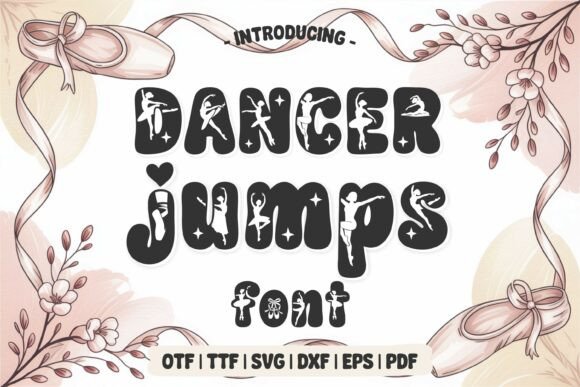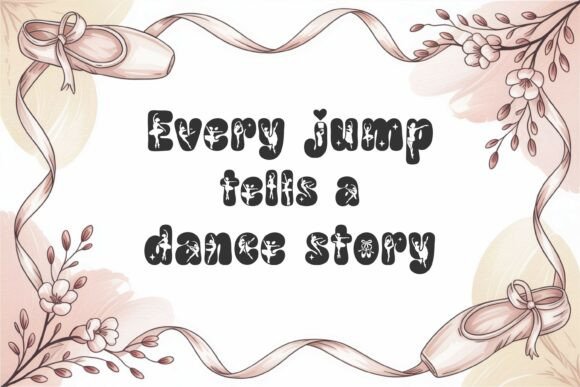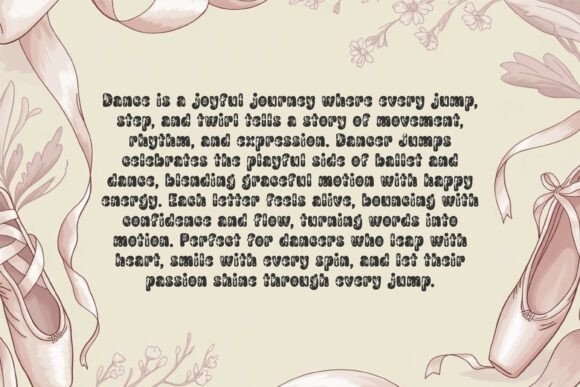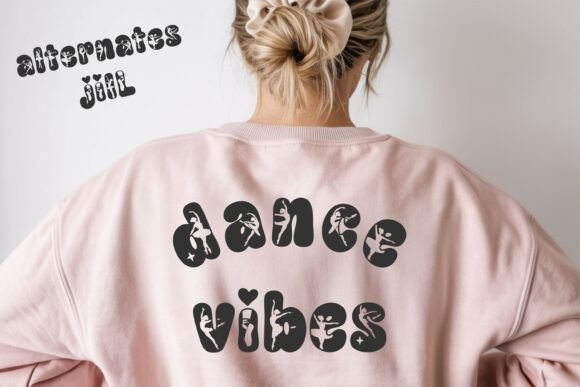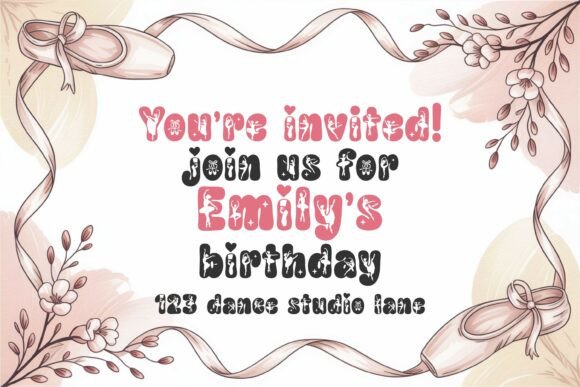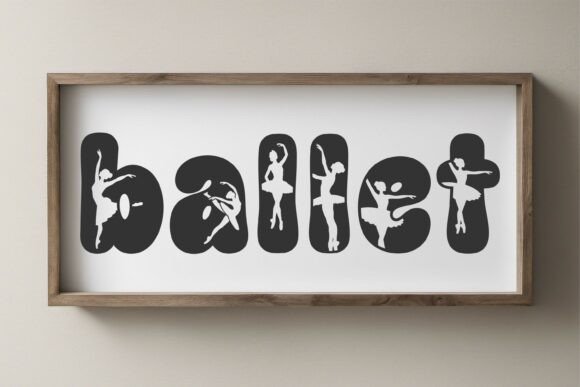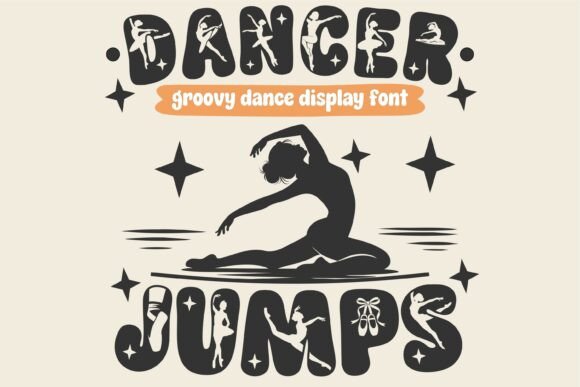
Dancer Jumps Font: A Playful and Energetic Typeface Inspired by Ballet Movement
Are you looking for a font that captures the joy, elegance, and playfulness of dance? Look no further than Dancer Jumps, a unique and energetic typeface that combines groovy, wavy letterforms with elegant dancer silhouettes. This font is perfect for designers, crafters, and dancers who want to add a touch of fun and sophistication to their projects.
A Perfect Balance of Fun and Grace
Dancer Jumps font is a masterful blend of playful and elegant design elements. The wavy letterforms evoke the fluid movements of ballet, while the dancer silhouettes add a touch of whimsy and fun. This font is ideal for creating eye-catching designs that celebrate the joy and athleticism of dance. Whether you’re designing a logo for a dance studio, creating a poster for a performance, or making a sign for a kids’ room, Dancer Jumps font is the perfect choice.
Dancer Jumps font is incredibly versatile and can be used for a wide range of creative projects. Some ideas include:
• Ballet signs and posters
• Dance quotes and inspirational graphics
• Kids’ room decor and wall art
• T-shirts, stickers, and other merchandise
• Name signs and personalized gifts
• Cricut or Silhouette projects
• Dance studio logos and branding
• Performance posters and flyers
A Complete Design Solution
One of the unique features of Dancer Jumps font is that it serves as both text and illustration in one. This means that you can use it to create beautiful, high-contrast designs that are perfect for both digital and physical crafting projects. The font is designed to work beautifully with vibrant gradients, which can add an extra touch of fun and energy to your designs.
Retro-Modern Vibe
Dancer Jumps font has a distinctive retro-modern vibe that is sure to turn heads. To enhance this look, try using the font as a large-scale header element, paired with bold and vibrant gradients. This will create a design that’s both nostalgic and modern, perfect for celebrating the joy and athleticism of dance.
Designed for High Contrast and Smooth Cutting
Whether you’re designing for digital or physical media, Dancer Jumps font is optimized for high contrast and smooth cutting. This makes it perfect for use with cutting machines like Cricut or Silhouette, or for creating digital graphics that need to stand out.
A Great Choice for Dancers and Designers
Dancer Jumps font is a great choice for dancers, studios, recitals, and cheerful dance-themed creations. With its unique blend of playful and elegant design elements, this font is sure to inspire creativity and add a touch of fun to any project. Plus, with PUA encoding included, you can easily access and use the font’s special characters and glyphs.
Key Features of Dancer Jumps Font
• Unique and energetic typeface inspired by ballet movement
• Groovy, wavy letterforms combined with elegant dancer silhouettes
• Perfect balance of fun and grace
• Ideal for ballet signs, dance quotes, kids’ room decor, and more
• Serves as both text and illustration in one
• Designed for high contrast and smooth cutting
• PUA encoding included for easy access to special characters and glyphs
In conclusion, Dancer Jumps font is a playful and energetic typeface that’s perfect for designers, crafters, and dancers who want to add a touch of fun and sophistication to their projects. With its unique blend of groovy, wavy letterforms and elegant dancer silhouettes, this font is sure to inspire creativity and bring a smile to your face.